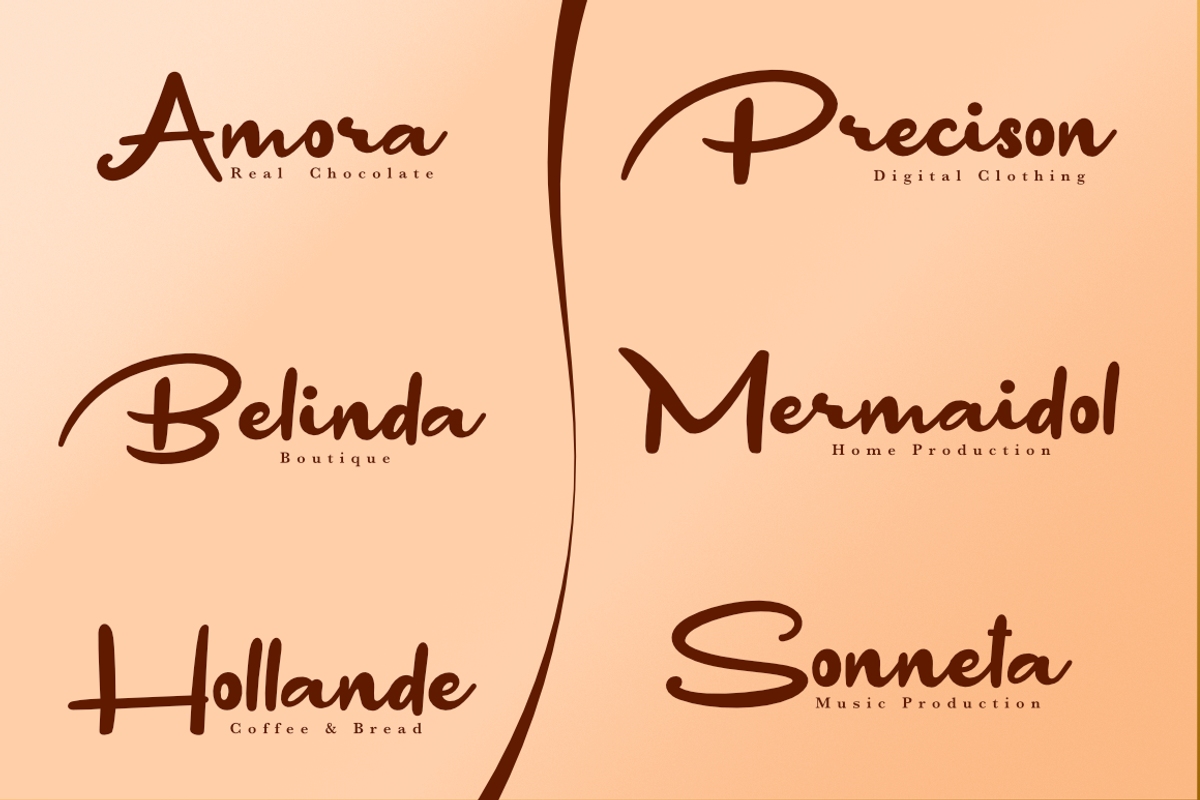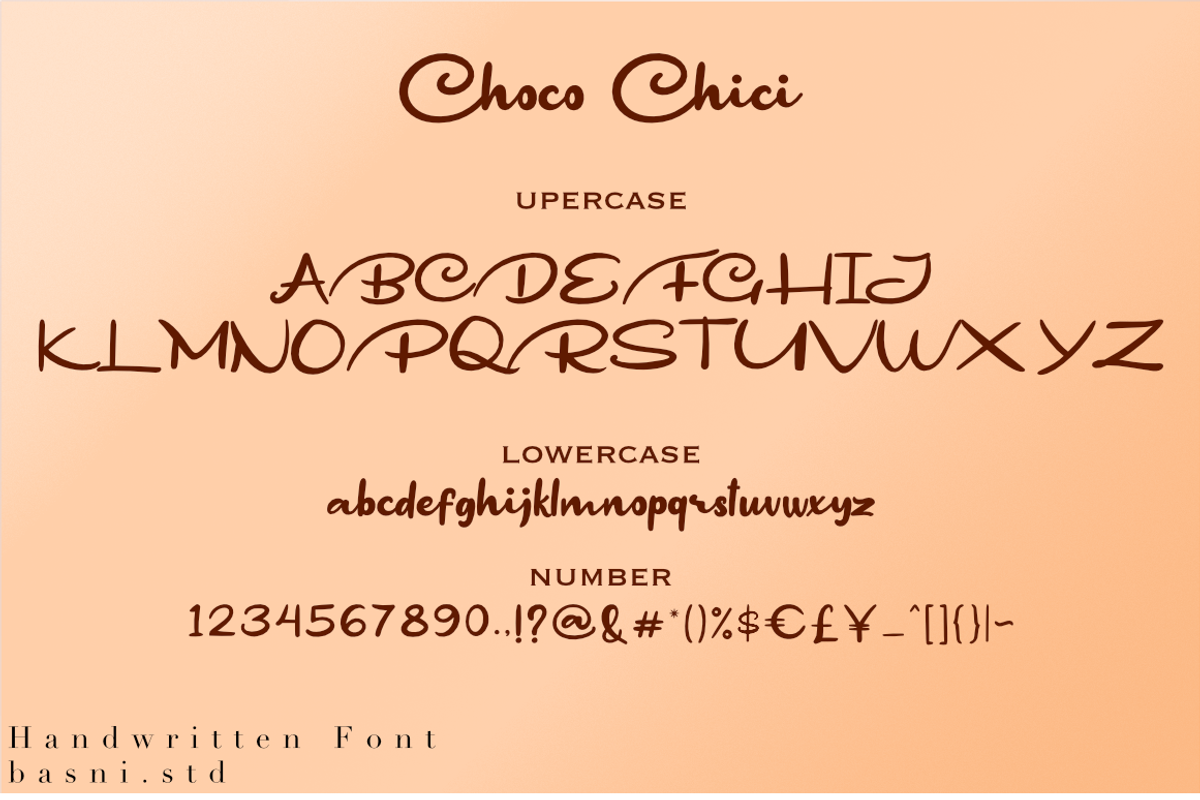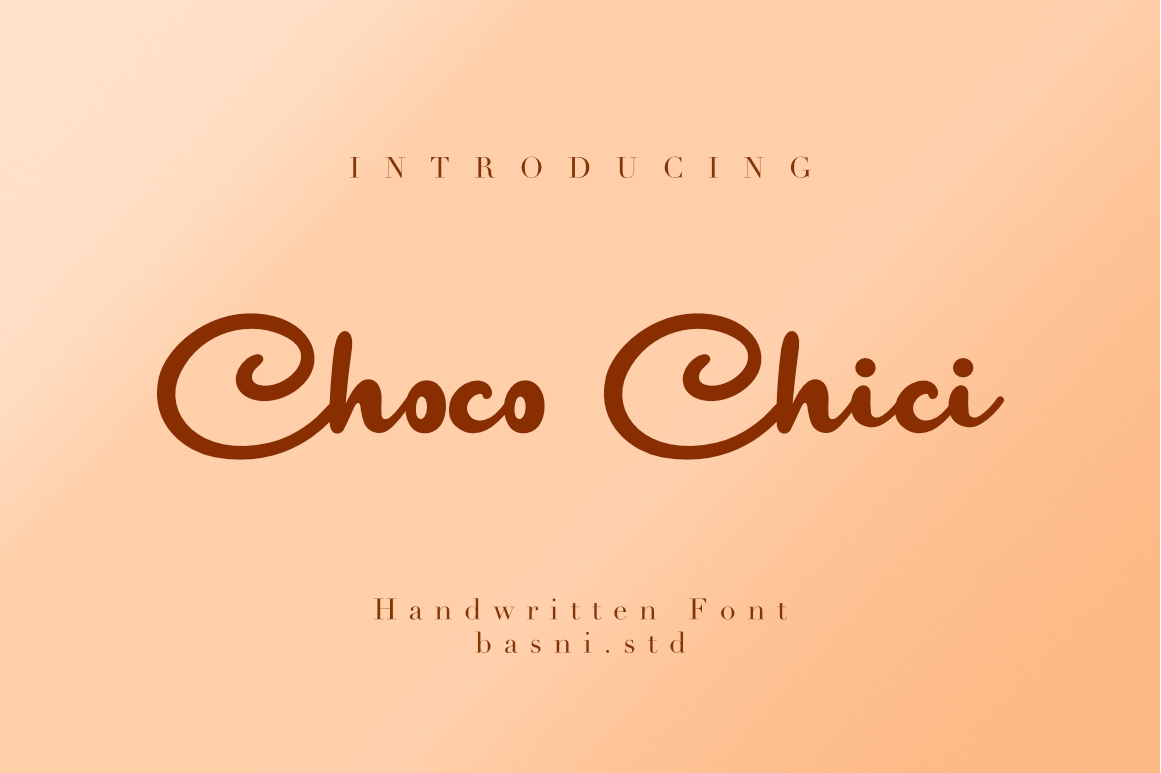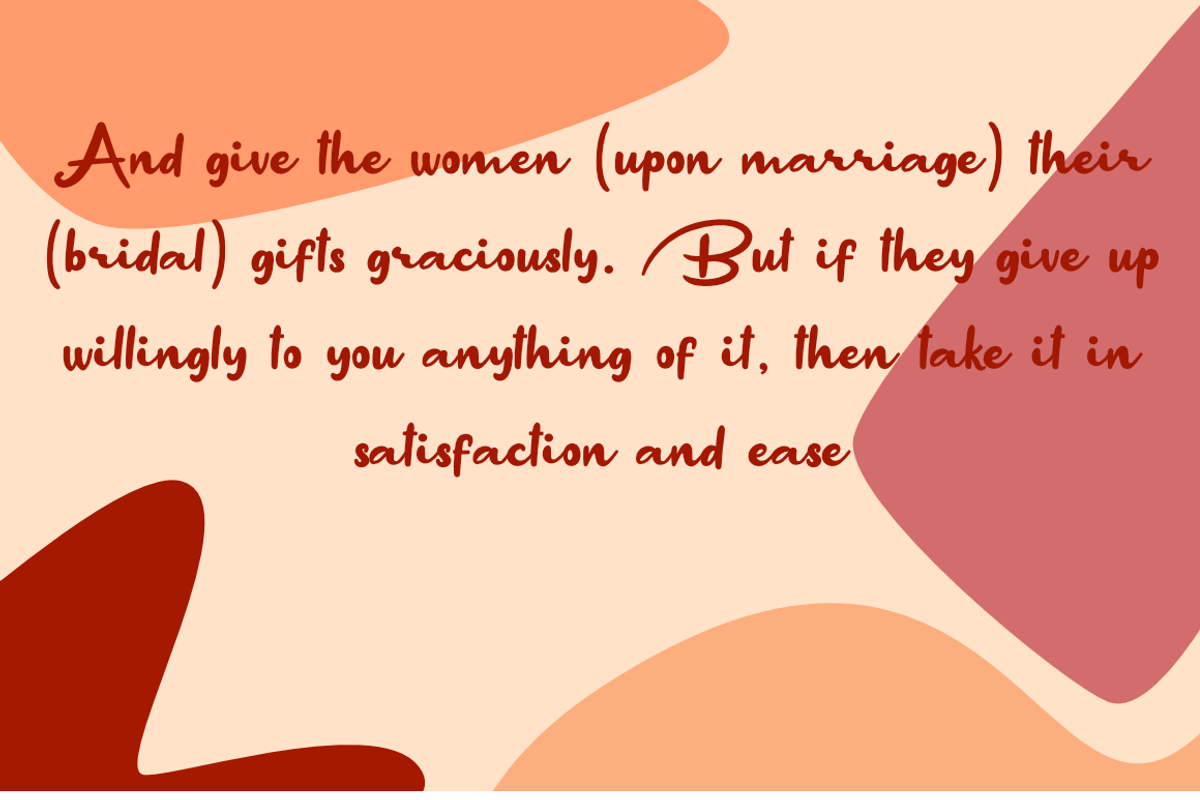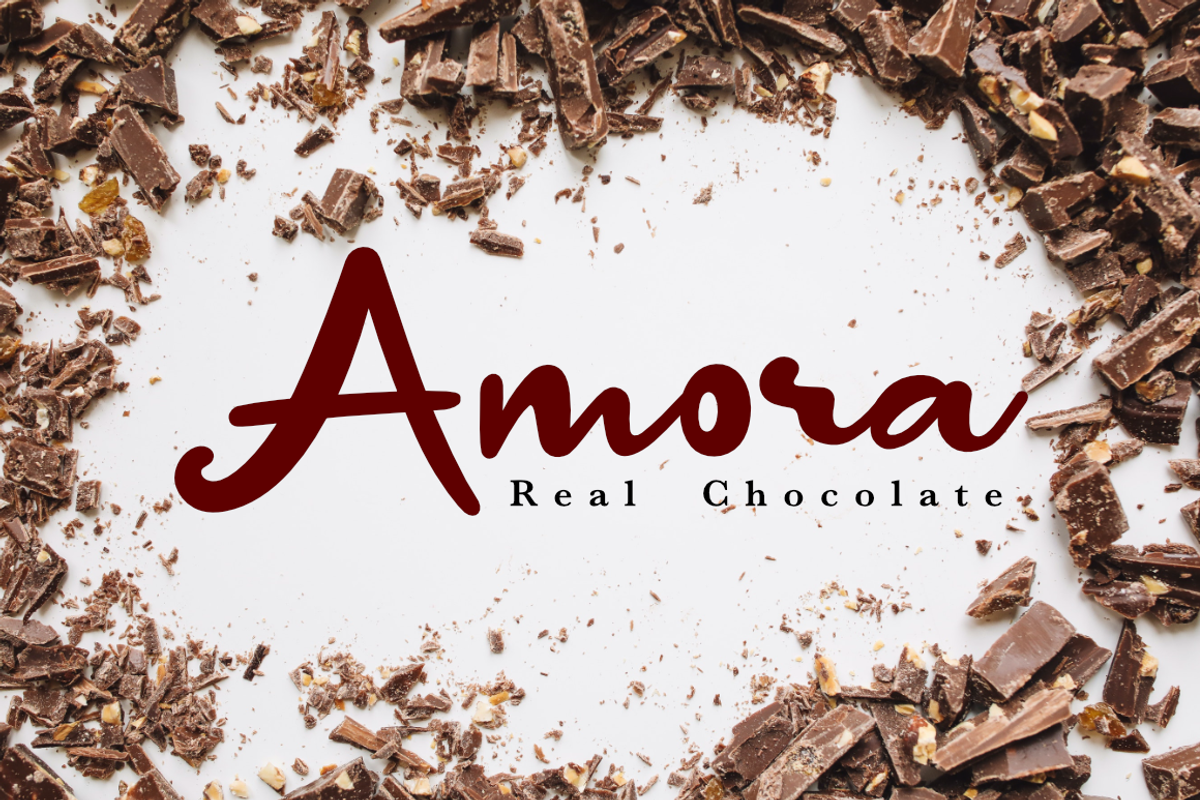
Choco Chici - a Handwritten Font,
Introducing Makintos Choco Chici , a Handwritten Font,
Choco Chici is very perfect for branding, websites, Aparrel, and editorial designs. Includes all upper and lower case letters, multilingual support, punctuation and binding. everything can be easily accessed using software that supports OpenType.